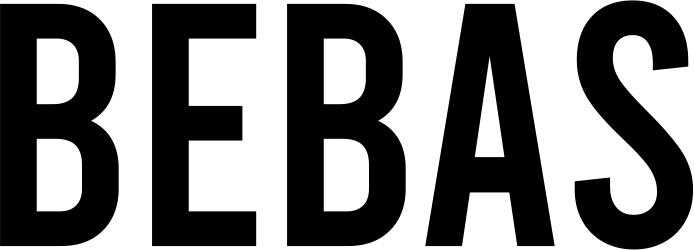
Bebas Font
What can increase the popularity of your text has a close junction with selecting the proper font. Penning captions, publications, texts, websites, and especially impressive headlines just by using the sans serif font comes true.
The Bebas font with standard features; high readability, and bold, tall, and strong letters are at your command to bring out your typography despite the lack of lowercase letters.